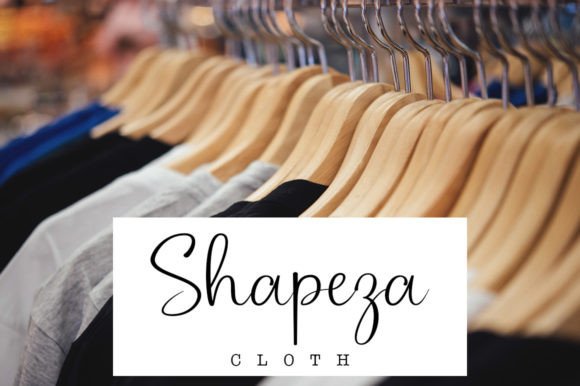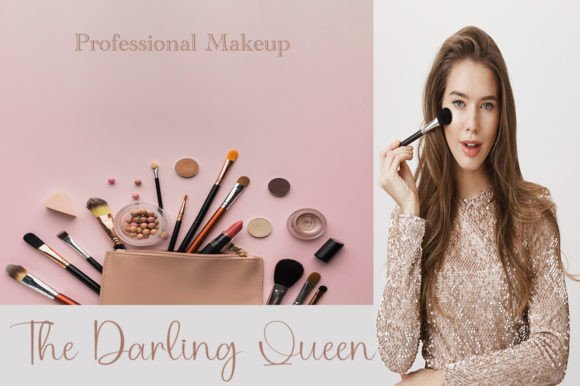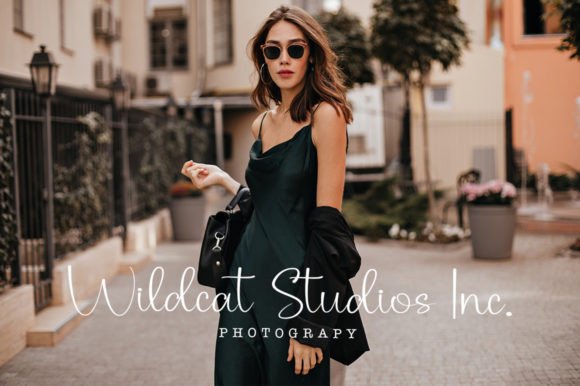
Introduction to Ofalthine Caligraphy Font
Ofalthine Caligraphy is a lovely and delicate script font that exudes elegance and class.
This font was particularly crafted for those who need a beautiful and refreshing look to their designs .
Key Features of Ofalthine Caligraphy Font
Why Choose Ofalthine Caligraphy Font?
Ofalthine Caligraphy Font offers exceptional quality and versatility, making it a valuable addition to your design toolkit. Whether you’re creating for personal projects or commercial use, Ofalthine Caligraphy Font delivers professional results.